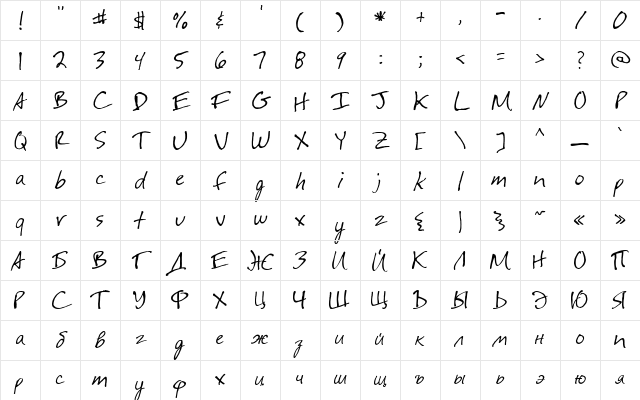
Complete festus Regular glyph index. Displaying only characters natively supported by festus Regular font.
festus is a composed and adaptable typeface that performs quietly and consistently across a wide range of design contexts.